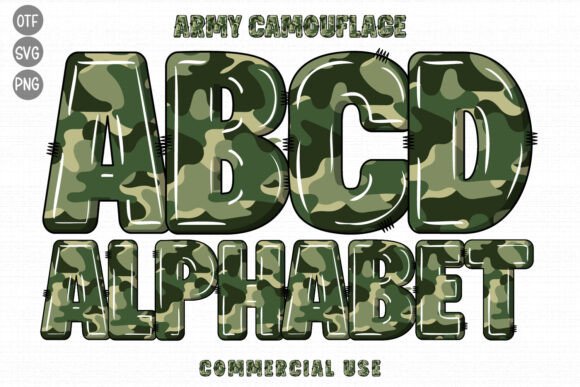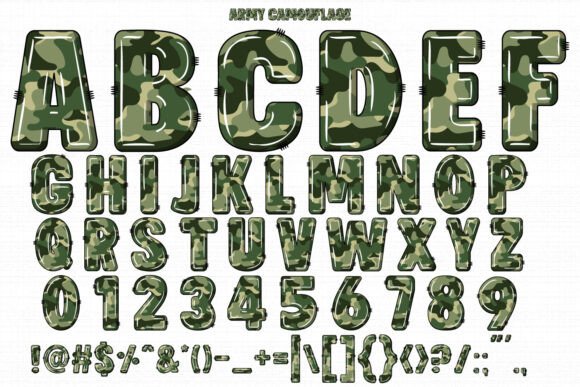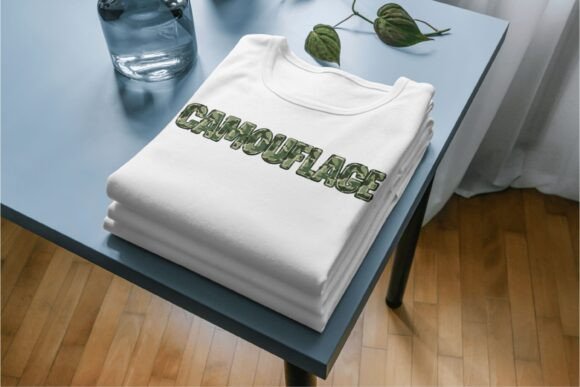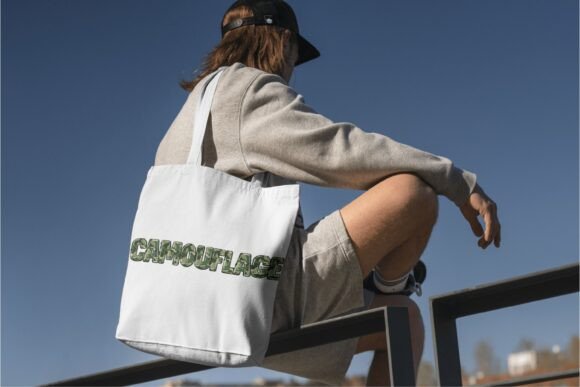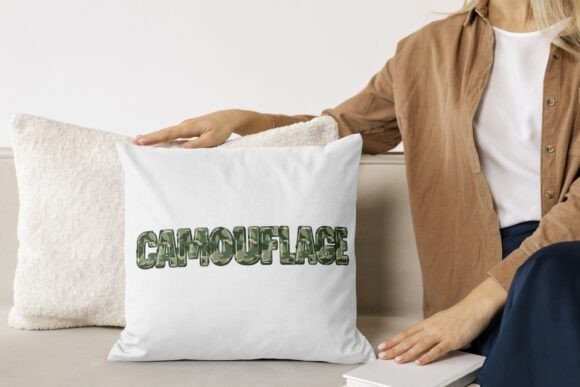
Army Camouflage Font
Army Camouflage is a color font with a Camouflage skin texture. This font is perfect for nature-themed designs and for children’s projects. No matter the topic, this font will be an incredible asset to your fonts’ library, as it has the potential to elevate any creation.